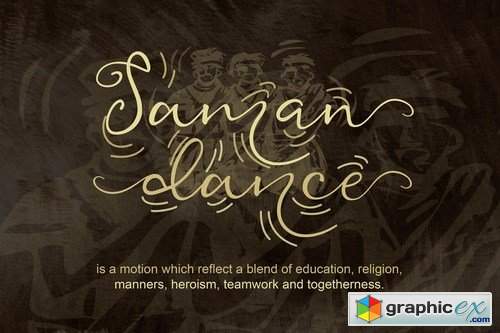
Still Wonder Script
Still Wonder Script - is Fresh and modern font script with a handwritten calligraphy style, decorative characters, and a dancing baseline! So beautiful on the invitation like greeting cards, branding materials, business cards, quotes, posters, and more!